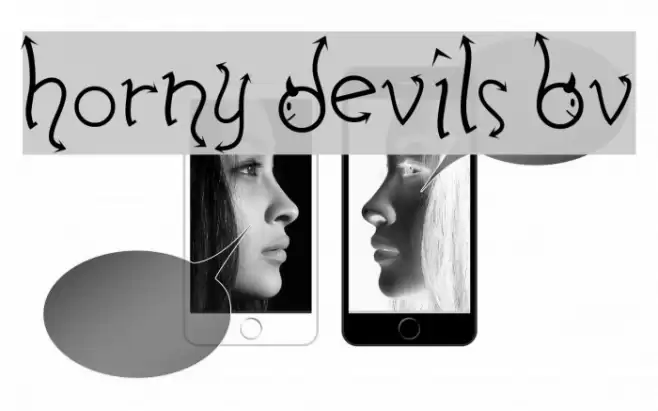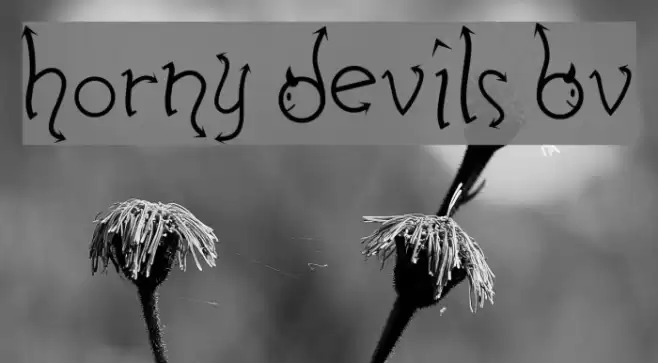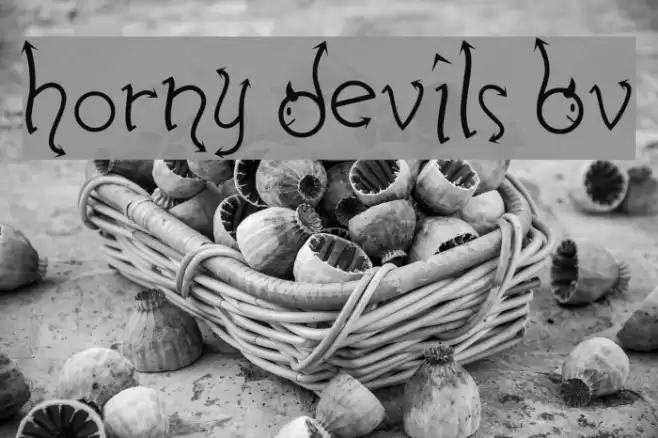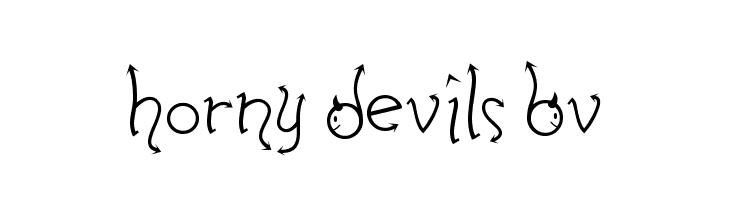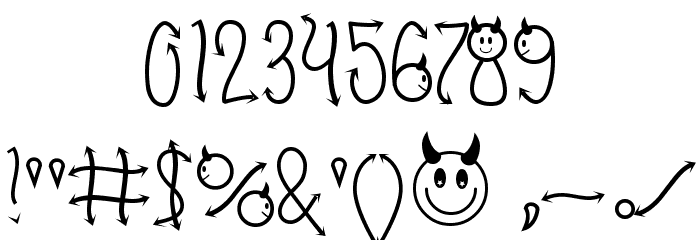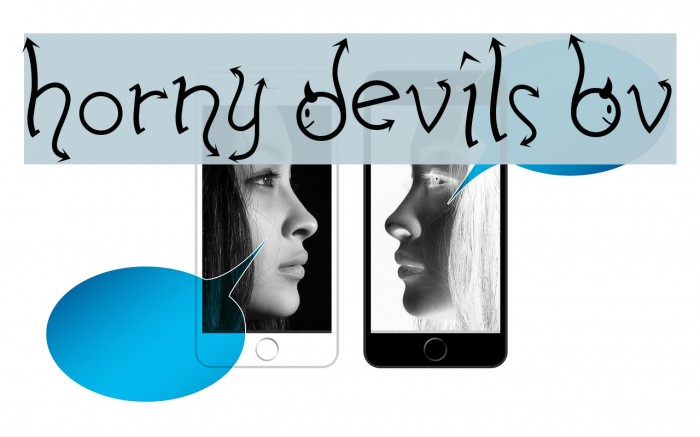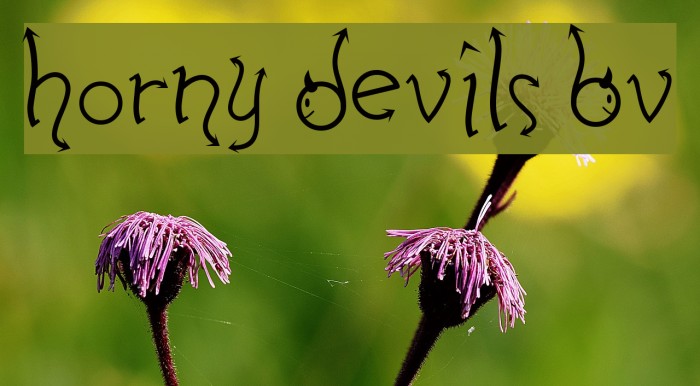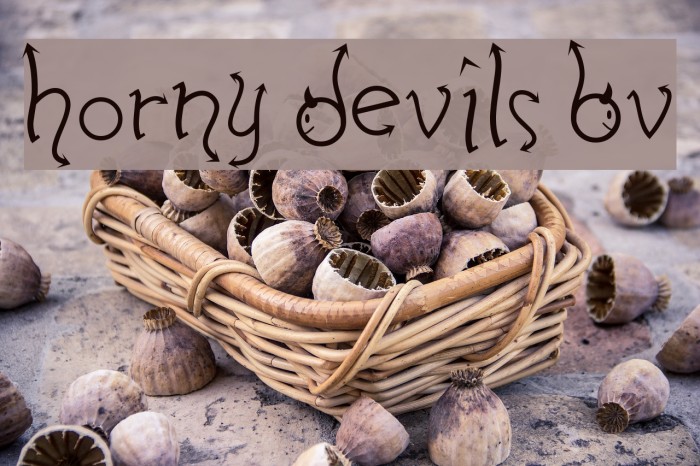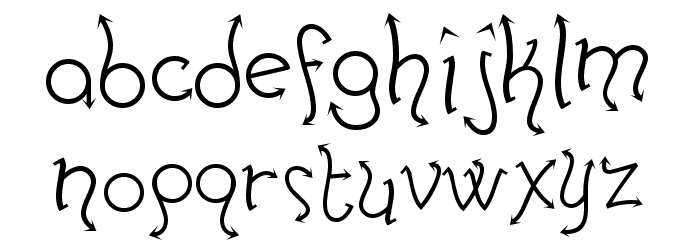
Horny Devils BV Font
Horny Devils BV Description
This playful and whimsical font features devilish elements, with horns and tails integrated into the characters. The letters have a hand-drawn, cartoonish style, creating a fun and mischievous appearance. The font includes both uppercase and lowercase letters, numbers, and a variety of special characters, each adorned with unique devil-themed embellishments. The strokes are uneven, adding to the quirky and informal feel. This font is perfect for projects that require a lighthearted and humorous touch, such as Halloween-themed designs or playful branding.
A playful, devil-themed font with cartoonish, hand-drawn elements from Handwritten fonts.
- Proposed Projects: Ideal for Halloween invitations, playful branding, children's book covers, or themed party decorations.